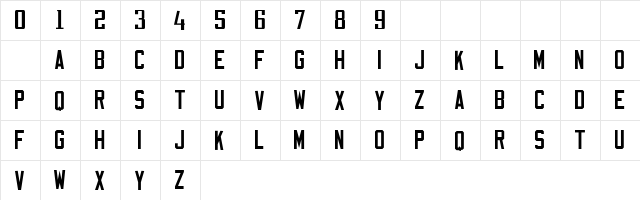
NFL Titans Regular
Design Context for NFL Titans Typeface
NFL Titans offers clean, dependable letterforms without strong stylistic allegiance, making it a practical choice for designers who need flexibility.